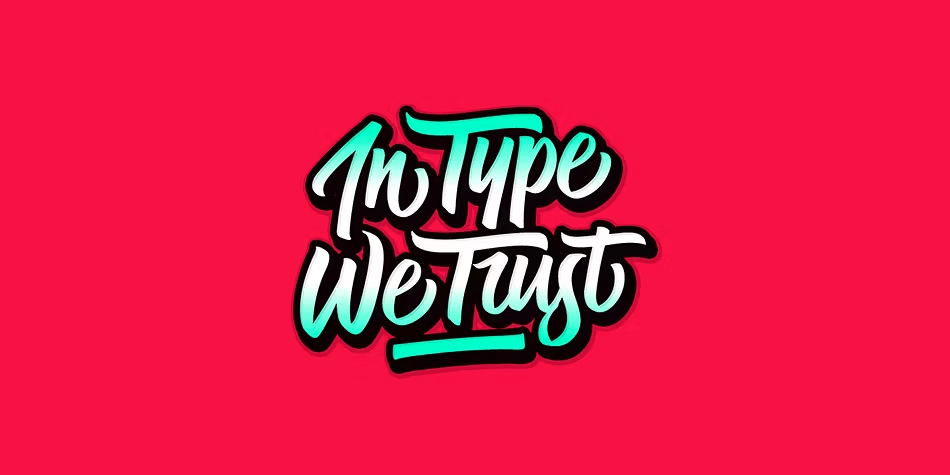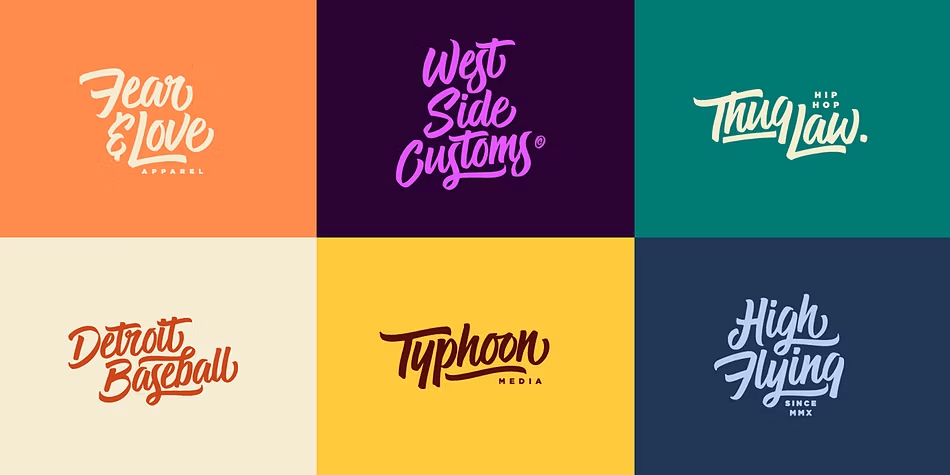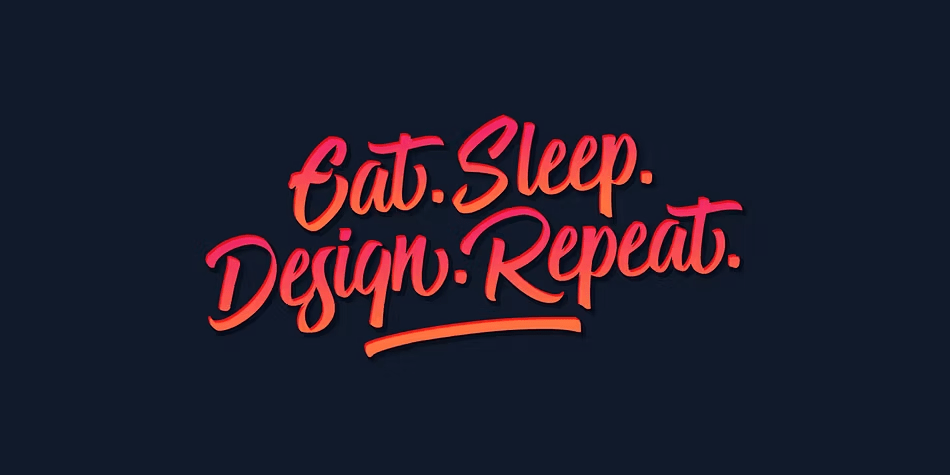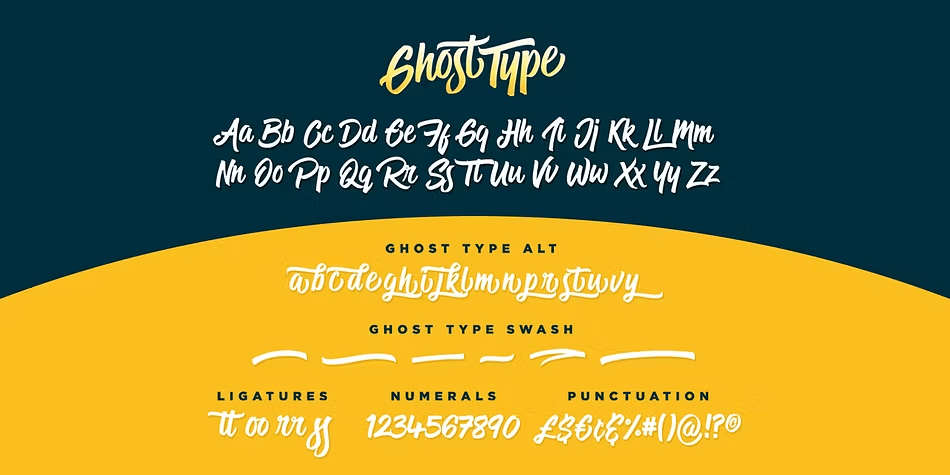
Ghost Type
Font Family by Set Sail Studios
Ghost Type is a handwritten script family with an airy, decorative feel and a flowing, calligraphic rhythm. Its connected letters, smooth curves, and swash-driven details give it a casual but polished personality that feels both artistic and elegant.
This family includes 3 styles—Regular, Alt, and Swash—giving you a few ways to shape the look, from a cleaner script line to a more ornamental presentation. The hand-drawn character and bold strokes make it especially appealing for standout display work where you want movement and personality.
For designers and makers, it’s a natural fit for branding, invitations, posters, packaging, social graphics, and other decorative typography that benefits from a modern calligraphy style with a slightly vintage touch. Created by Set Sail Studios, it brings a sophisticated script voice without feeling overly formal.